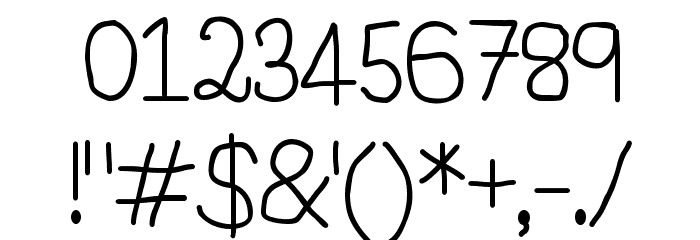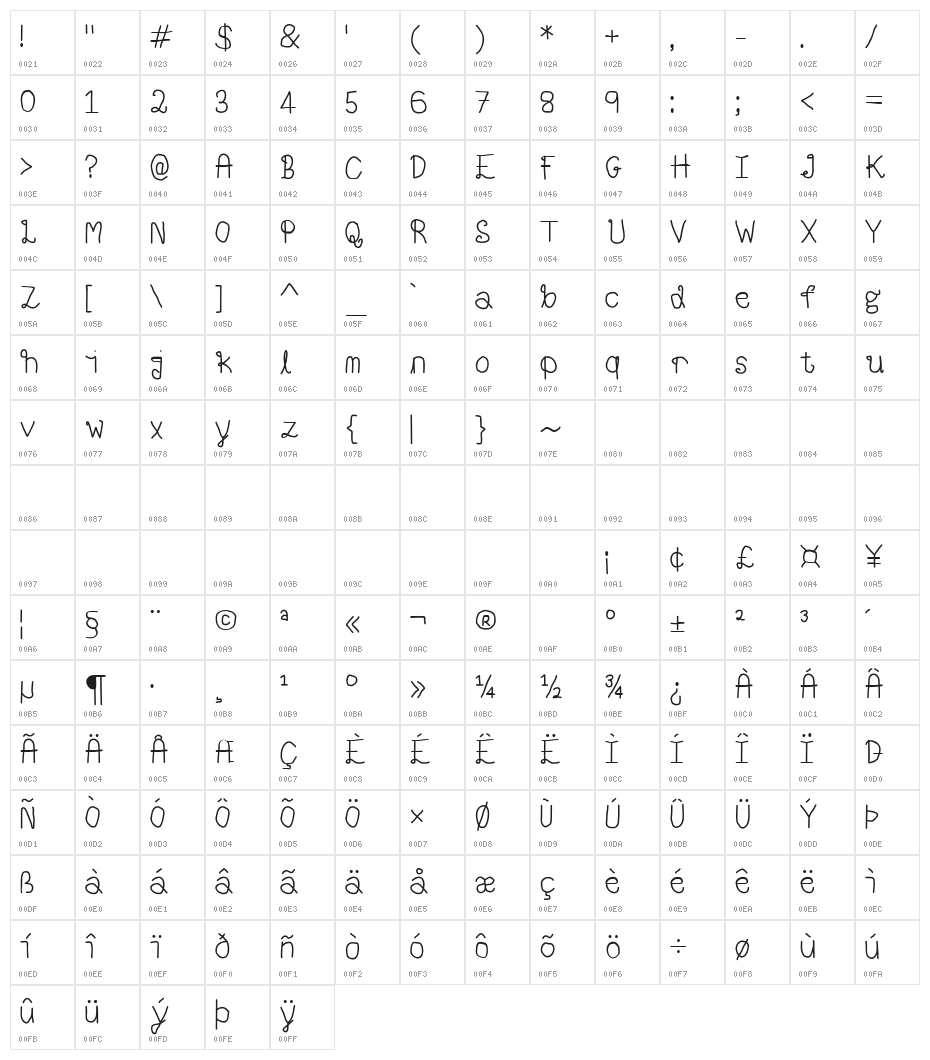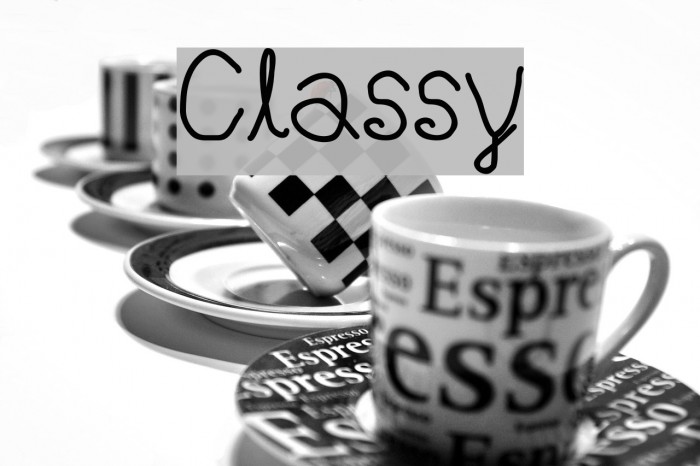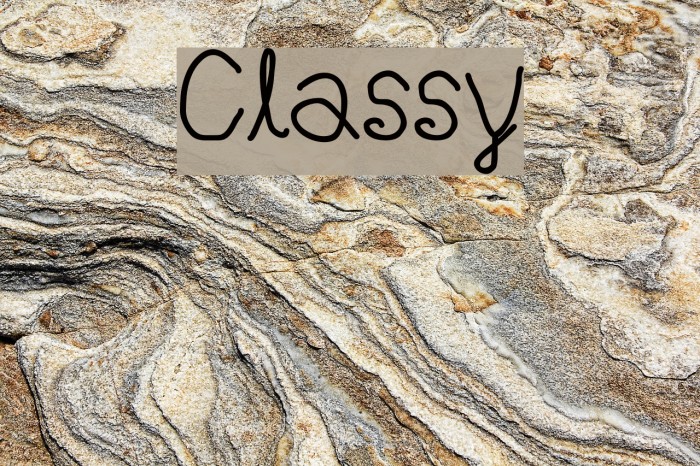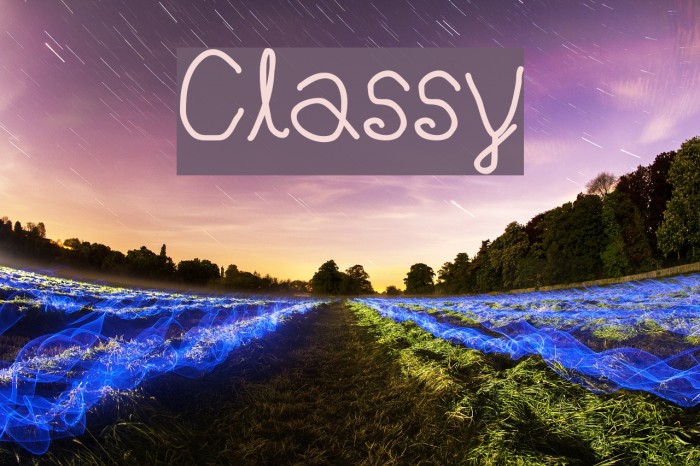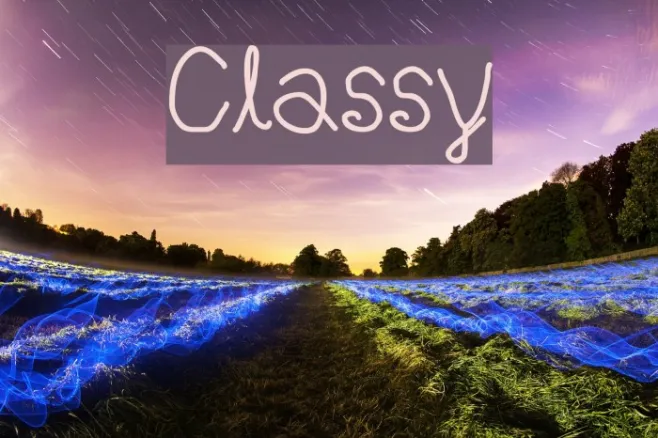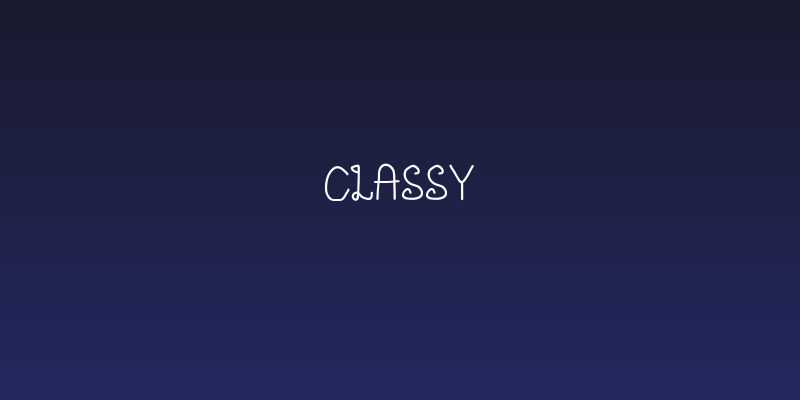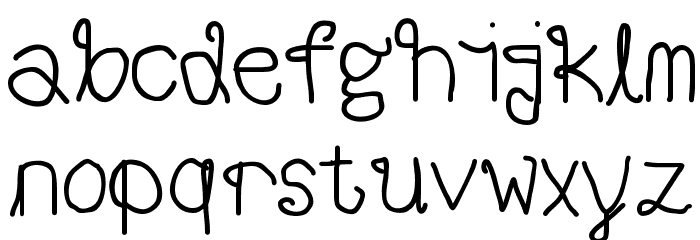
Classy Font
Classy Description
This playful and whimsical font features a handwritten style with a casual and friendly appearance. The characters are slightly rounded with a consistent stroke width, giving it a smooth and approachable look. Each letter has a unique flair, with some incorporating loops and curls that add to its charm. The numbers and special characters maintain the same playful aesthetic, making it versatile for various creative projects. Its informal style is perfect for designs that require a personal touch, such as invitations, greeting cards, or children's book covers.